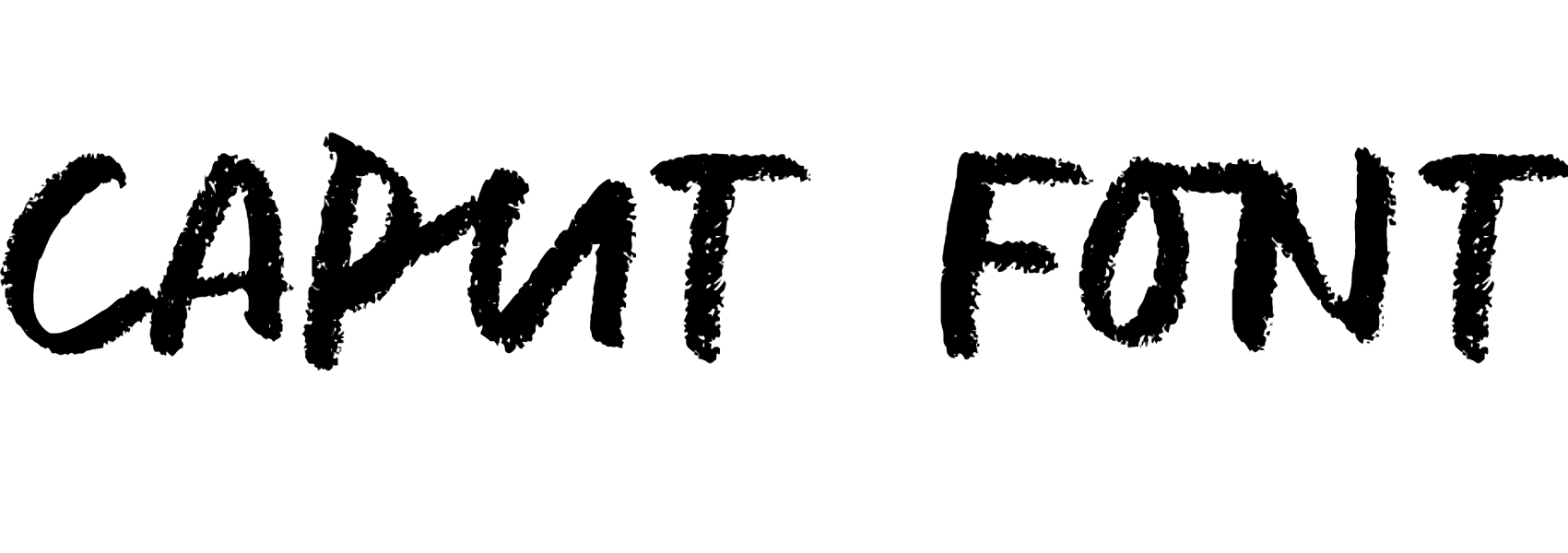
Caput
Caput is a script font created by Geert Dijkers and released through Geert@JOEBOB Graphics (2018). The letters have the smooth movement of real pen lettering, which is why even a single name looks special in it. You can download it for free and test it with your own words in the preview above.
What You Can Type With Caput
Caput covers the full alphabet in upper and lowercase, plus all ten numbers, so you can set names, dates and prices without switching fonts. Punctuation is limited, so look at the character map if you need a specific symbol. There are no accented letters like é or ñ, so it's best kept to English text.
Ligatures and Smart Letters in Caput
Where Caput Works Best
Designers usually reach for fonts like Caput when they're making wedding invitations, logos and signature-style headings. Script fonts read best in short bursts, so keep it to names, titles and one-line quotes. Skip all caps: script capitals are drawn to start a word, not to fill one.
Who designed Caput font?
Caput was designed by Geert Dijkers and published by Geert@JOEBOB Graphics. The copyright line inside the font is dated 2018.
Does Caput have ligatures?
Yes. Caput has ligatures that turn on by themselves in most design apps and browsers, so you don't need to do anything special.
Does Caput support accented letters?
No. Caput has no accented letters such as é, ñ or ü, so it's best for English text.